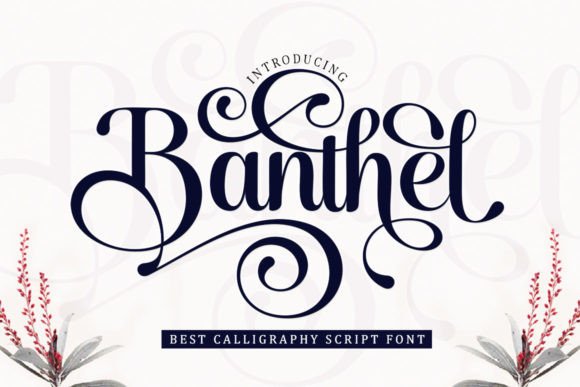
Introducing Banthel Font, the ultimate choice for all your Cricut writing needs. Crafted by the talented folks at Mastertype, this modern script font exudes elegance and sophistication.
Banthel Font stands out from the crowd with its sleek and clean design, making it an irresistible choice for anyone looking to add a touch of femininity and glamour to their projects. Its simplicity and readability make it a breeze to use, ensuring that your message is effortlessly conveyed to your audience.
One of the standout features of Banthel Font is its exquisite letter joints. These beautiful connections between letters add a unique charm to your text, making it visually appealing and captivating. Whether you're designing invitations, creating labels, curating restaurant menus, or building a strong brand identity with a logo, Banthel Font is the perfect companion.
This versatile font seamlessly adapts to various formal forms, making it suitable for a wide range of applications. From the world of fashion and makeup to stationery, novels, magazines, and books, Banthel Font effortlessly elevates your creations. Its timeless appeal also makes it an excellent choice for greeting cards and wedding invitations, ensuring that your special day is accompanied by a touch of elegance.
Packaging and labels come to life with Banthel Font, adding a touch of sophistication to your products and making them stand out from the competition. Moreover, Banthel Font caters to all your advertising needs, making your promotional materials visually stunning and unforgettable.
In addition to its aesthetic appeal, Banthel Font is designed with user experience in mind. Its readability ensures that your audience can effortlessly absorb your message, without any distractions. Whether your target audience is browsing online or offline, Banthel Font guarantees a seamless reading experience.